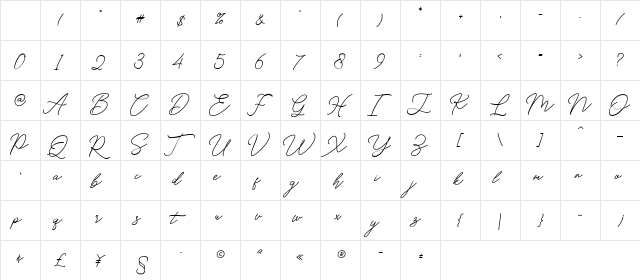
Hello Signature is a composed and adaptable typeface that performs quietly and consistently across a wide range of design contexts.
Pro Tip: Use Hello Signature in both headline and body roles to test its range before committing to a single application.